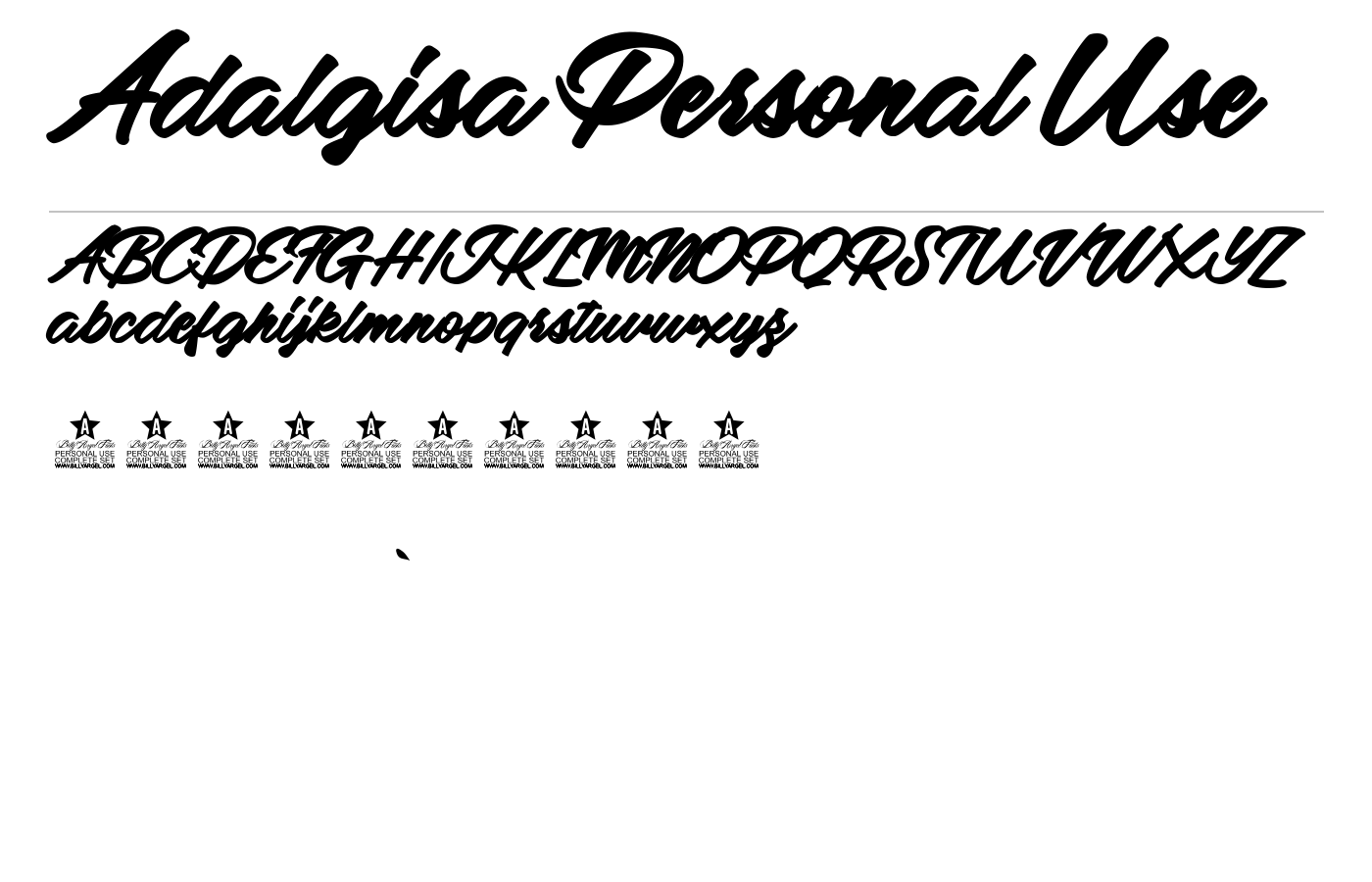
Adalgisa Personal Use is an elegant script font with smooth, flowing strokes and a moderate weight that gives it a confident yet graceful feel. Its connected letterforms and classic cursive style make it perfect for adding a personal, handwritten touch to invitations, branding, and stylish headlines. This font works beautifully in creative projects where warmth and sophistication are desired.
Adalgisa Personal Use Font
About Adalgisa Personal Use Font